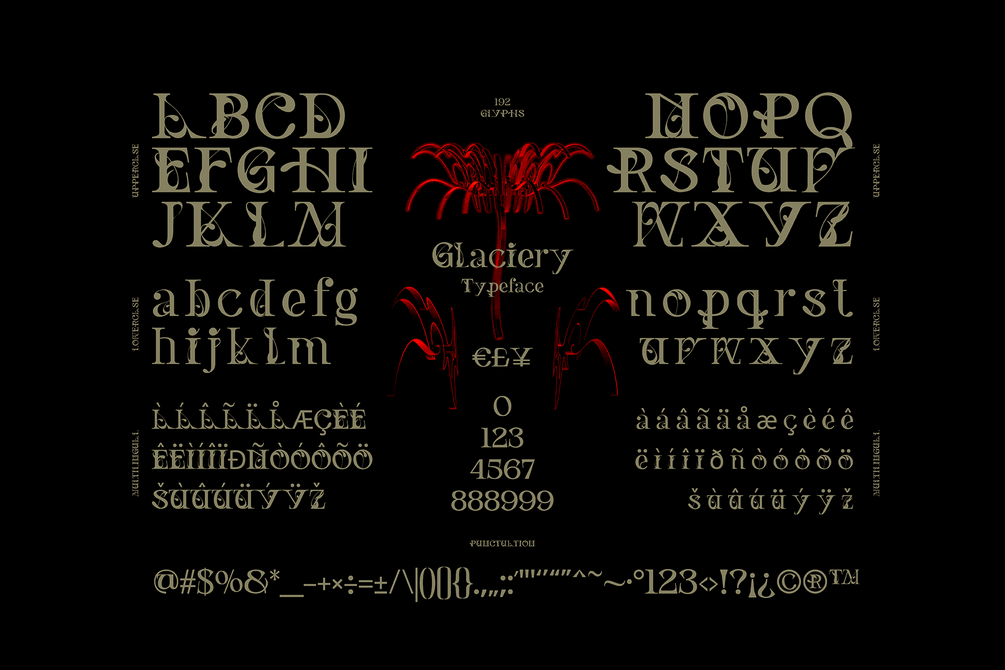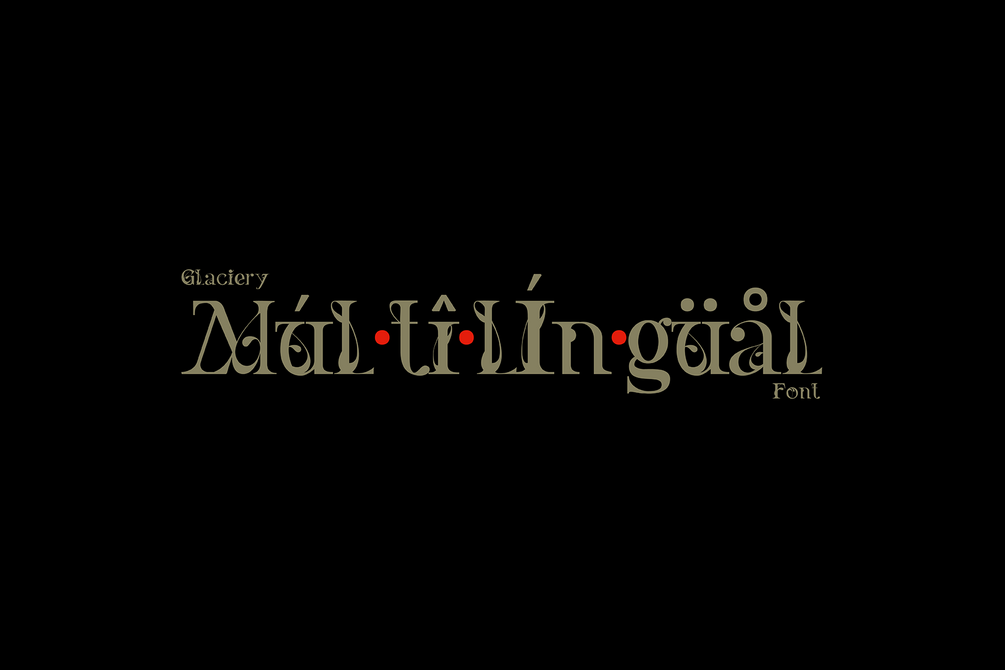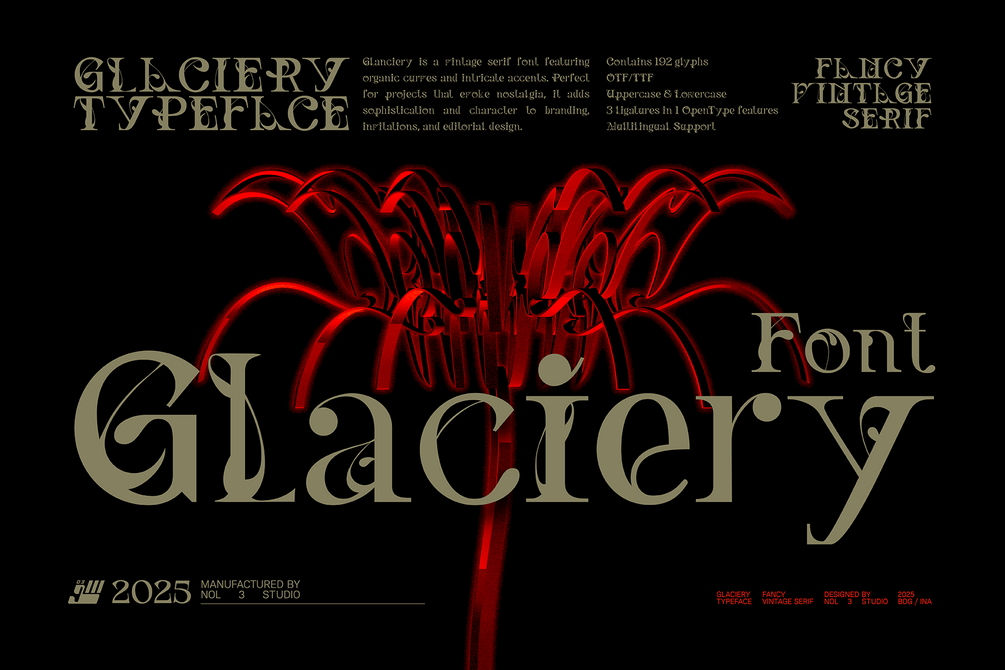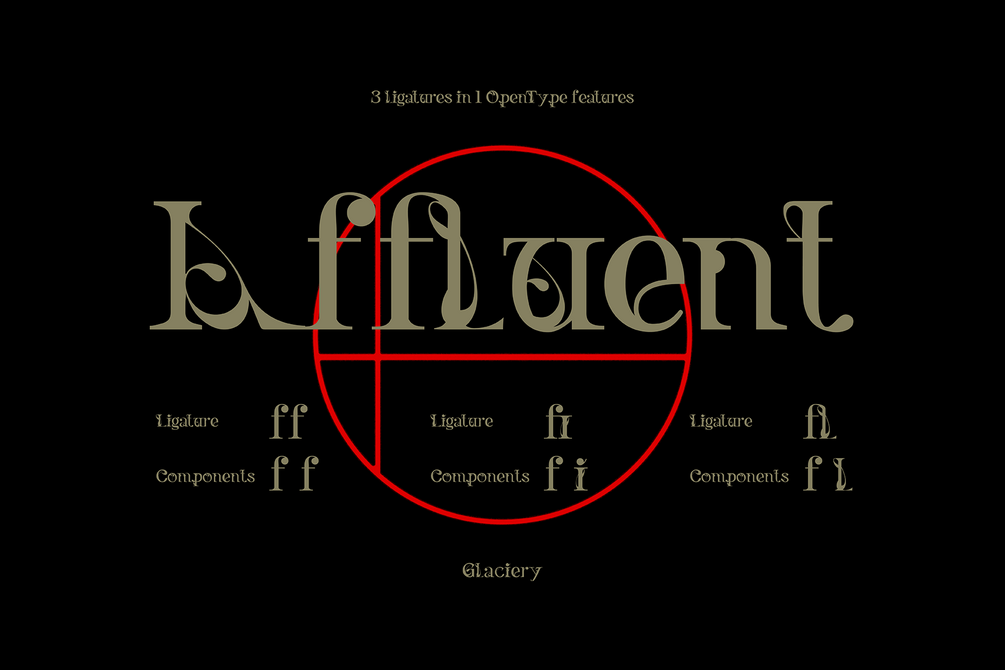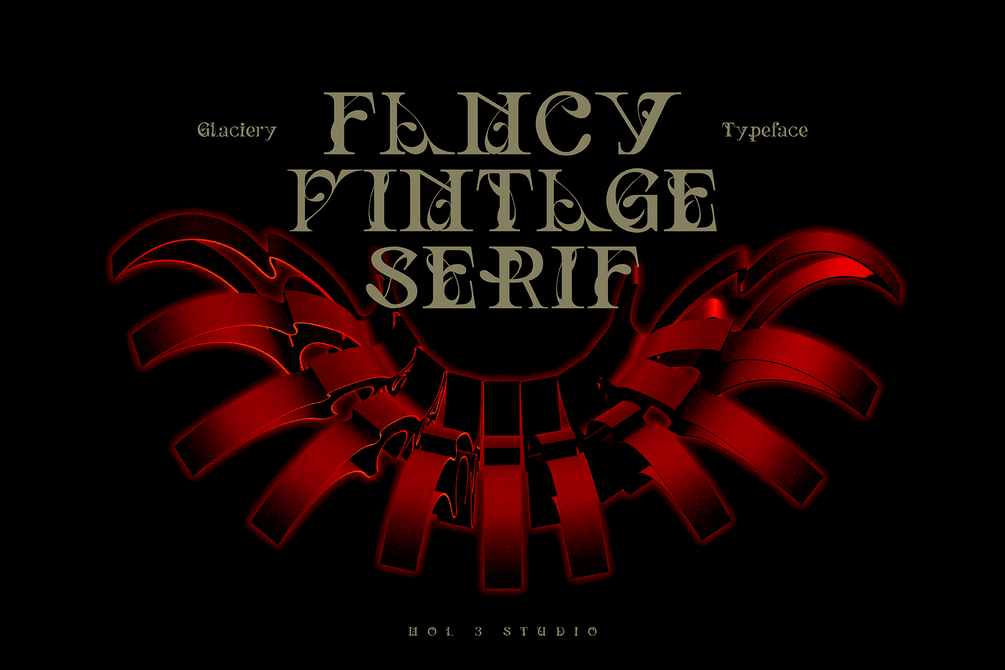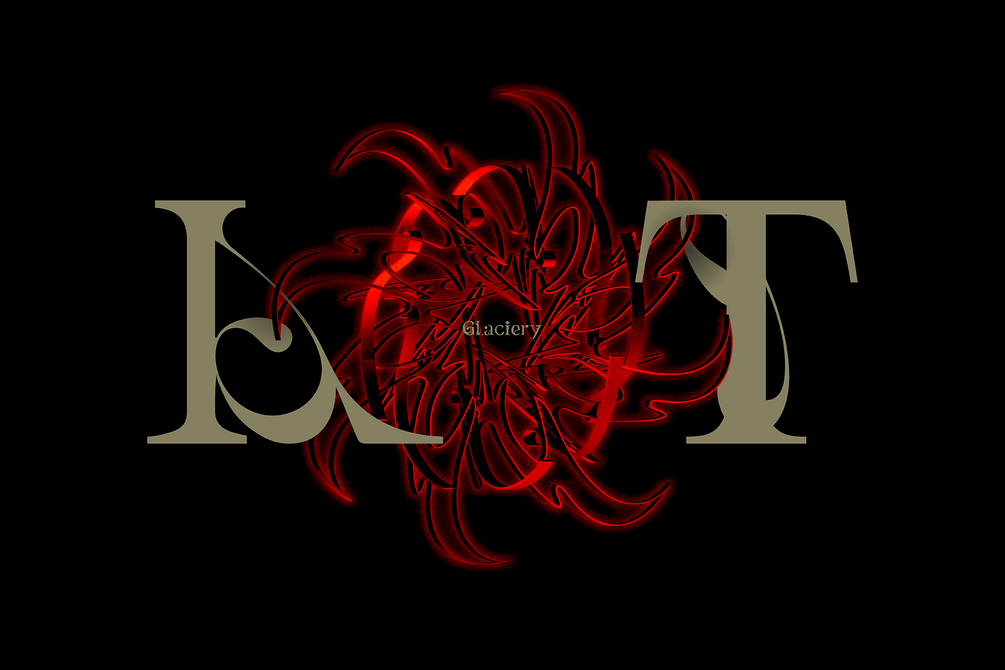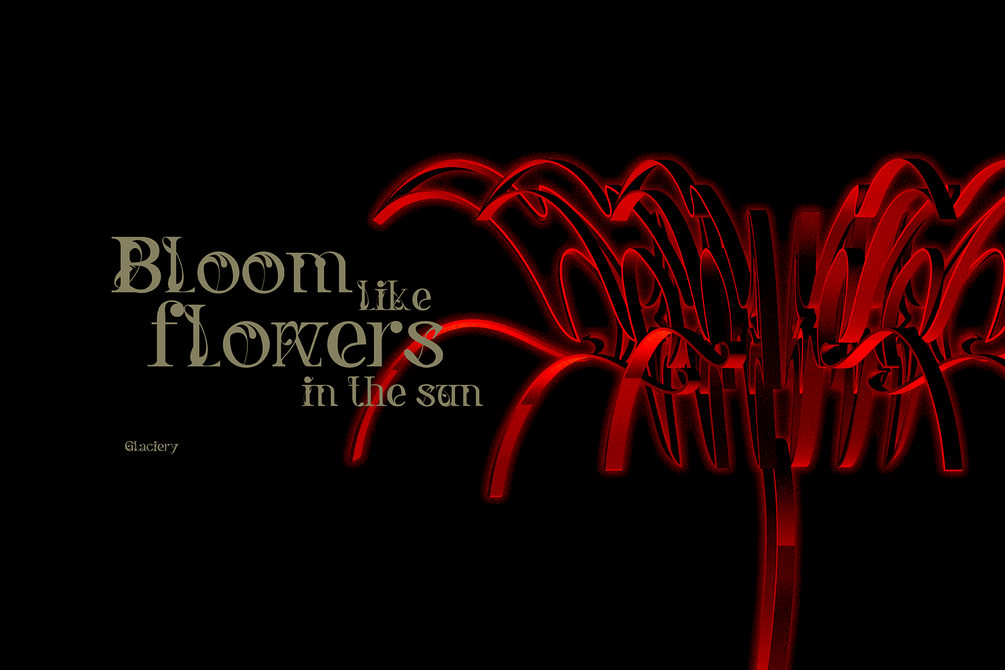
GLACIERY | Fancy Vintage Serif Font
Glanciery is a fancy vintage serif font featuring organic curves and intricate accents. Perfect for projects that evoke nostalgia, it adds sophistication and character to branding, invitations, and editorial design.
Key Features
• The Font Contains 192 glyphs
• Uppercase & Lowercase
• Numbers & Punctuation
• 3 ligatures in 1 OpenType features
• Multilingual Support